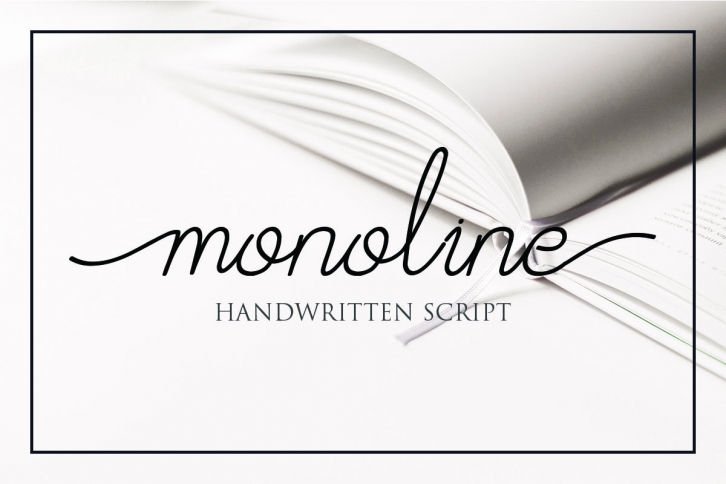
Afrida monoline script is a beautiful font that was designed by amindachoirun. It's a great choice for designers and creatives who need such a font. It was released on July 9, 2019 and the file size is 7.68 MB. Afrida monoline script may give a more youthful, expressive and casual look to your project. It is a very beautiful, refined, elegant, and high-quality font.